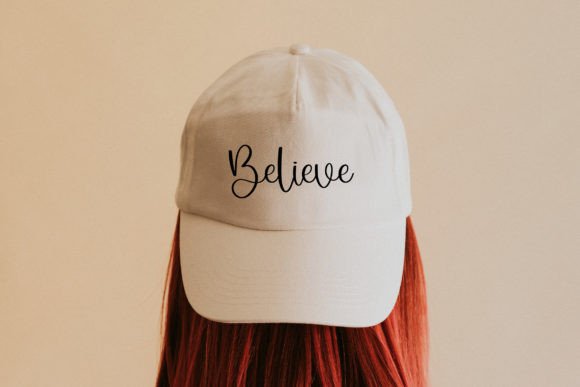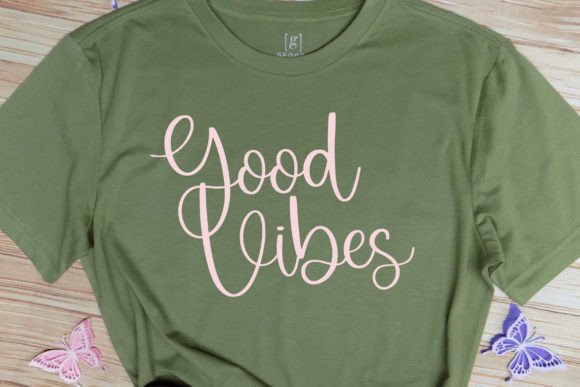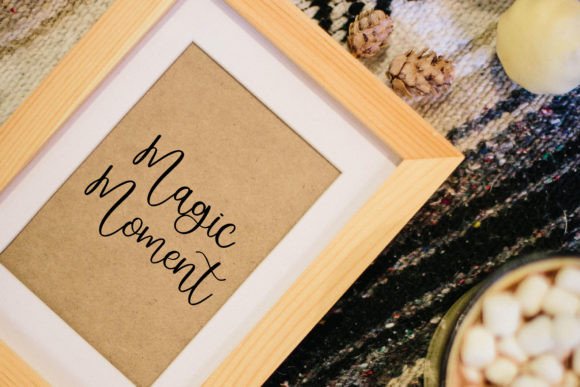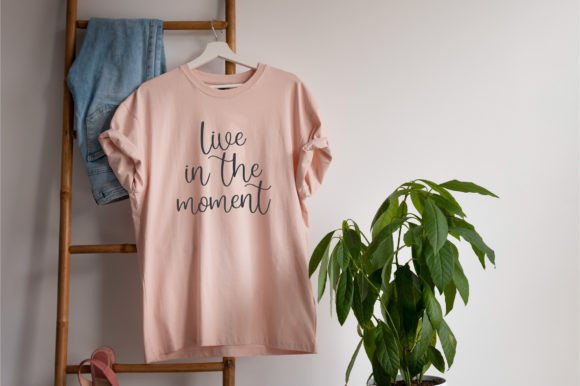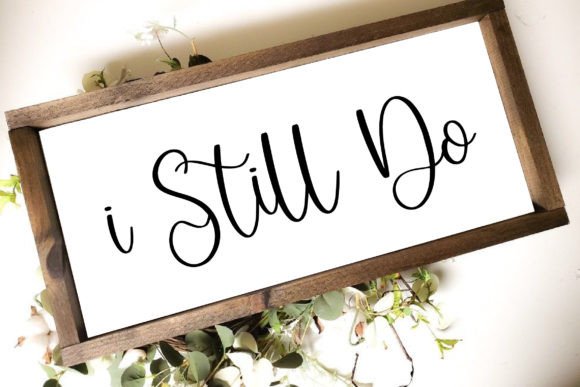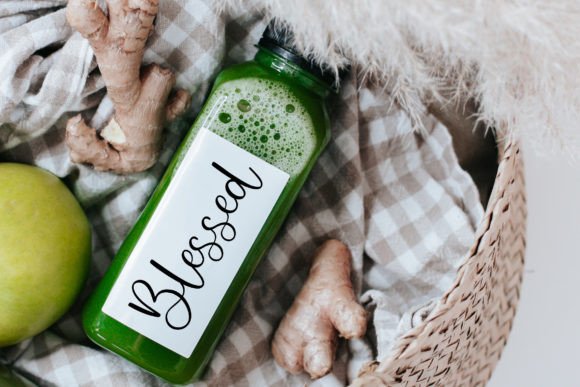
Where Creativity Meets Whimsy: Discovering the Beauty of Fromheart Font
There’s something magical about the moment when an idea clicks, and you know exactly how you want to express it. Maybe it’s the flicker of a lightbulb, the rush of adrenaline, or the gentle whisper of inspiration. Whatever it is, it’s a moment that sparks creativity and sets the wheels in motion. For designers, this moment is all too familiar – and it’s exactly what Fromheart Font is designed to capture.
This gorgeous handwritten script font is perfect for those special moments when you need to add a touch of personality to your work. Whether you’re crafting product packaging, branding a new project, or simply wanting to add some whimsy to your social media posts, Fromheart Font is the perfect tool for the job. And for designers, its value lies in its versatility and ability to evoke emotion, making it a must-have addition to any design toolkit.
Fromheart Font Key Features
- Unique Characteristics: The font features a unique, hand-drawn style with intricate details and subtle flourishes, giving it a distinctive and elegant appearance.
Fromheart Font Review
Overall, I think Fromheart Font is a beautiful and elegant script font. ✨ It’s perfect for adding a touch of sophistication to designs that need a little extra flair. The font’s flowing lines and connected letters create a sense of fluidity and movement, making it ideal for use in headings and titles.
One of the things I like most about Fromheart Font is its versatility. ✨ It can be used in a wide range of design applications, from wedding invitations and event materials to branding and marketing materials. The font is also highly legible, even at smaller font sizes, which makes it a great choice for digital designs.
However, there are a few limitations to consider. ⚠️ One of the main issues is that the font can be a bit difficult to read in certain contexts. For example, when used in large blocks of text, the connected letters can make it hard to distinguish between words. Additionally, the font may not be suitable for use in extremely formal or traditional designs, as its flowing lines can give it a slightly whimsical or casual feel.
- Beautiful and elegant script font
- Perfect for adding a touch of sophistication to designs
- Flowing lines and connected letters create a sense of fluidity and movement
- Highly legible, even at smaller font sizes
- Can be used in a wide range of design applications
Use the Fromheart font for:
Wedding invitations, bridal shower invitations, and other wedding-related designs.
Valentine’s Day and love-themed designs.
Any design that requires a elegant and romantic touch.